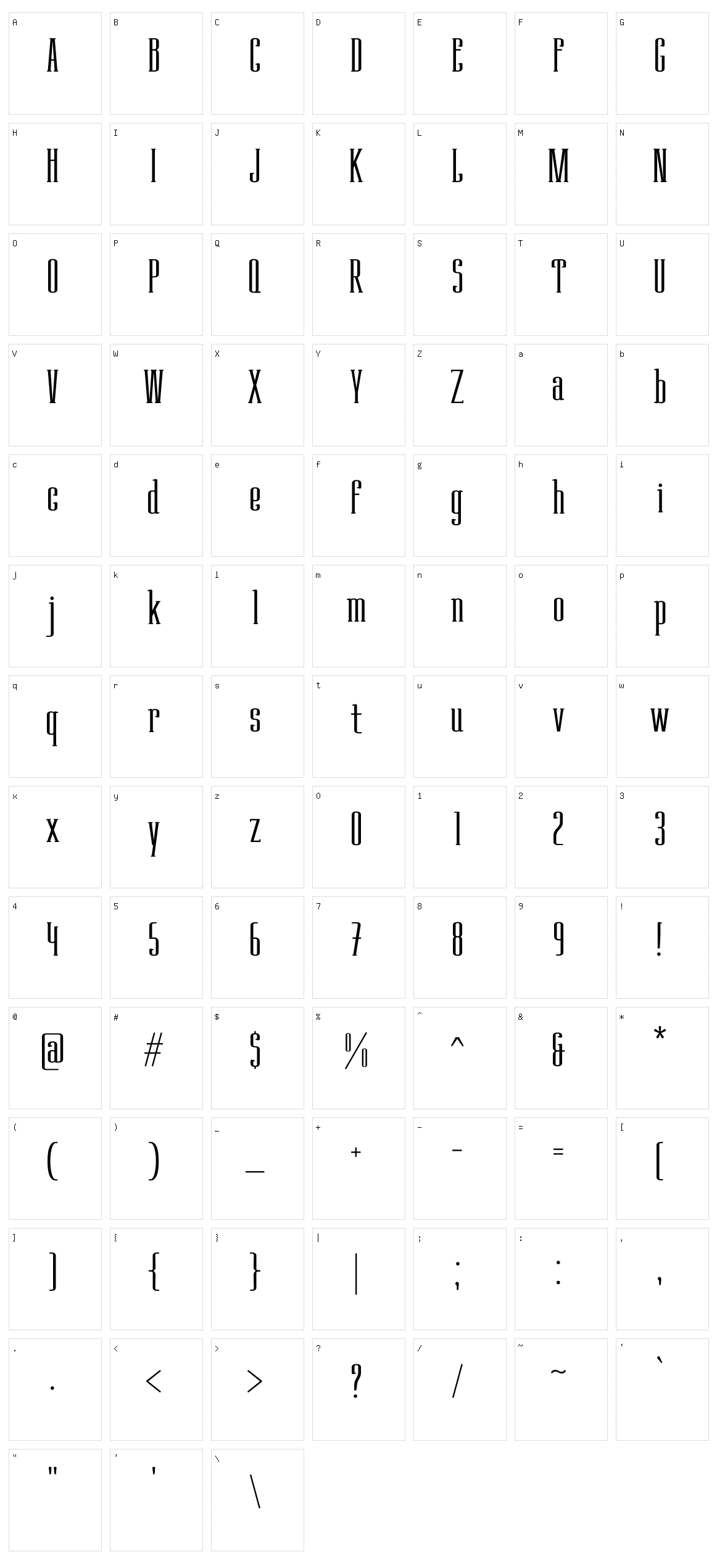
The free font Zongri is carefully designed by Lerima, showcasing a thoughtful balance of creativity and usability and falls under the Serif font style. When you download the ZIP file, it contains only 25.46 KB of font files, making it lightweight and quick to download. Please review the license details below to understand permitted usage and distribution rights. If license information is not available, we recommend using this font for personal projects only or contacting the author directly for commercial usage permissions.